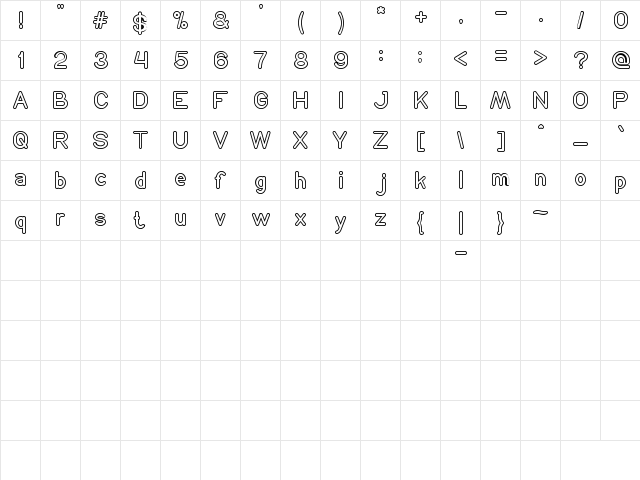
NEON GLOW Regular
Design Context for NEON GLOW Typeface
NEON GLOW channels digital-age aesthetics through its sharp, structured letterforms — ideal for brands that want to signal innovation.